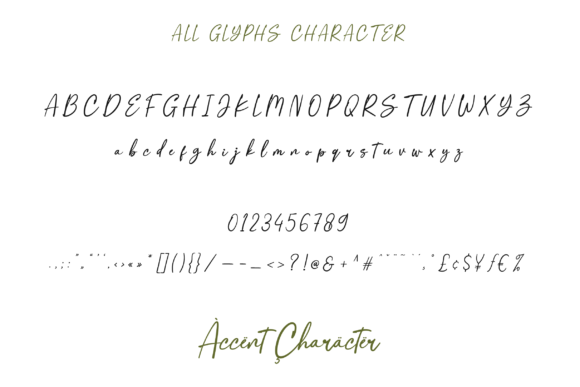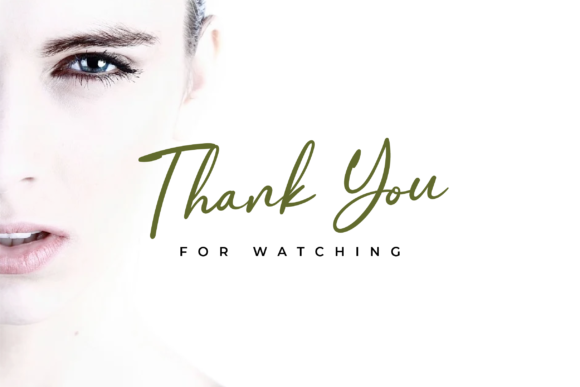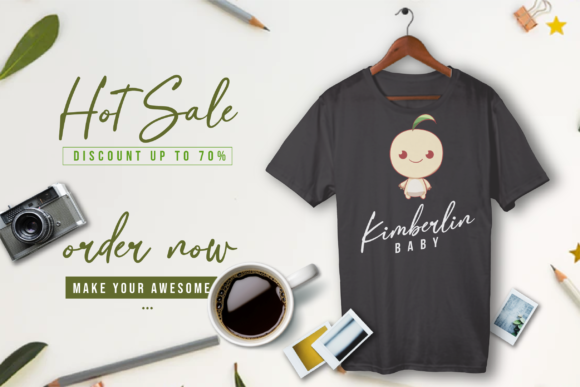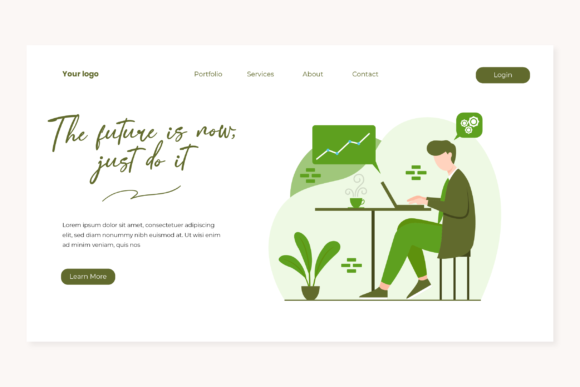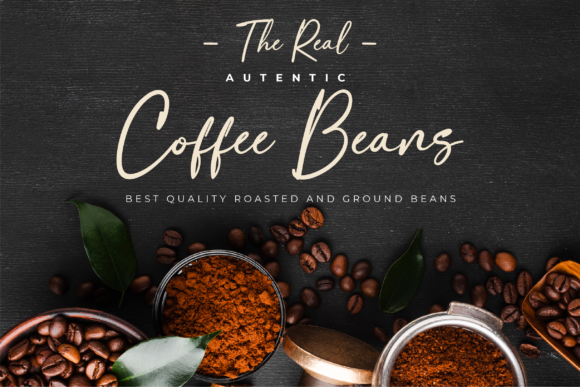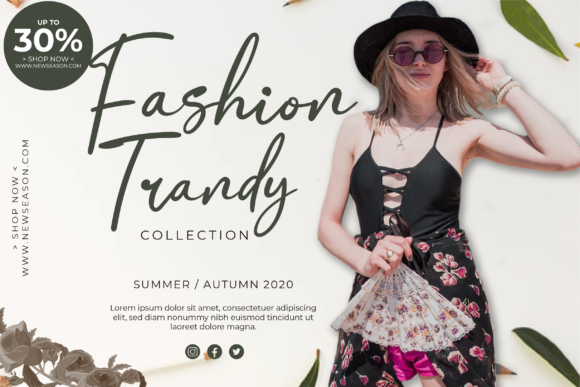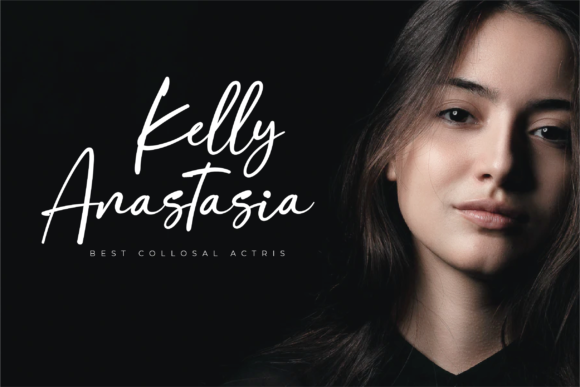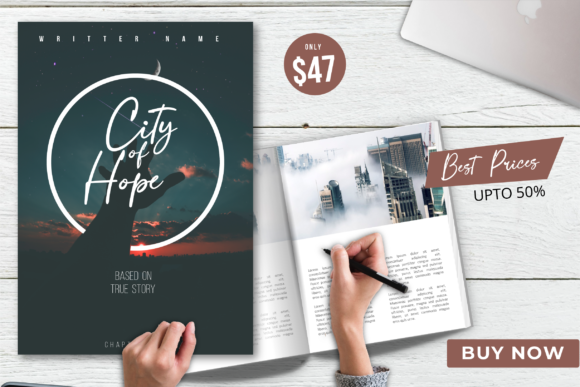
Raimont Font
About Raimont Font
Raimont is an exquisite handwritten font, expertly crafted to become an absolute favorite among designers. With its perfect blend of classy calligraphic influences and a contemporary and fresh twist, Raimont stands out as a font that exudes elegance and modernity. Fall in love with its beauty, and witness how it elevates your projects to the highest levels of sophistication and charm.
The font’s calligraphic influences shine through, adding a touch of timeless beauty to your designs. Its carefully crafted characters reflect the artistry of hand lettering, creating a sense of authenticity that captivates the eye.
While honoring traditional calligraphy, Raimont also feels refreshingly modern. Its contemporary twist ensures that your designs remain relevant and on-trend, making it a font that stands the test of time.
Raimont’s versatility makes it a go-to choice for a wide range of projects. Whether you’re working on branding, invitations, packaging, or any other creative endeavor, this font adds an extra layer of sophistication that sets your work apart.
As you fall in love with Raimont, you’ll discover how it becomes an indispensable tool for your design projects. Its flawless execution and refined aesthetics make it an absolute joy to work with, inspiring you to push the boundaries of creativity.
Incorporating Raimont into your projects brings them to a new level of elegance and allure. Whether it’s a logo or a wedding invitation, the font’s charm ensures that your designs leave a lasting impression on your audience.
Furthermore, Raimont’s legibility ensures that your message is conveyed with clarity and grace. This makes it a font that not only looks stunning but also effectively communicates your ideas and vision.
In summary, Raimont is more than just a font; it’s a work of art that balances classic calligraphic beauty with contemporary flair. Its exquisite craftsmanship and versatility make it a true favorite among designers. Embrace the beauty of Raimont in your projects, and watch as it brings a touch of sophistication and charm, elevating them to the highest levels of creative excellence.